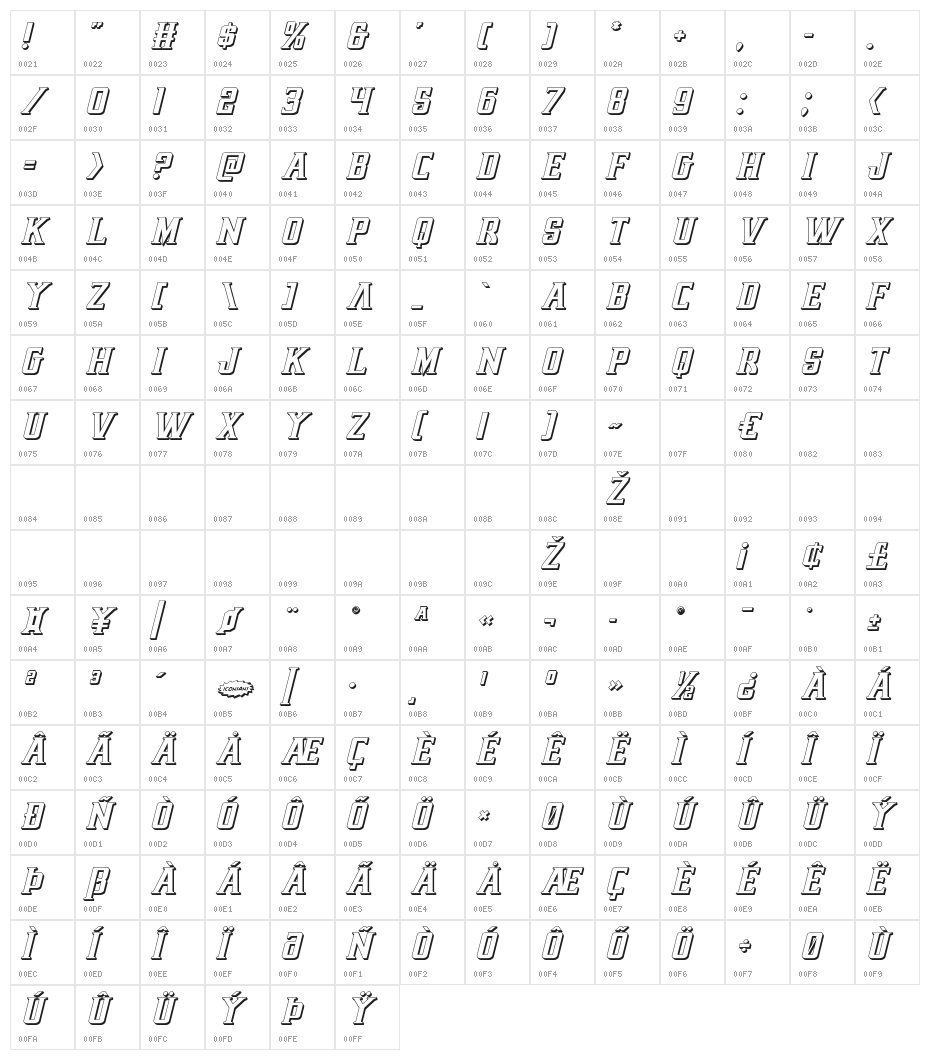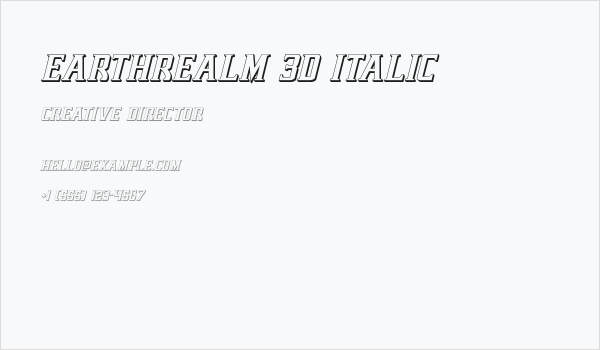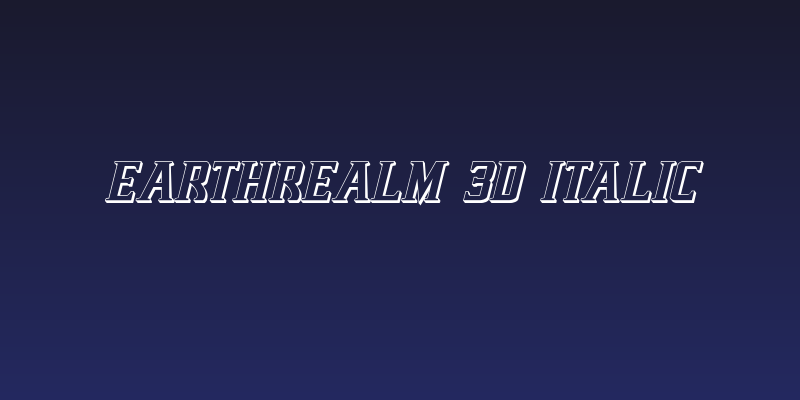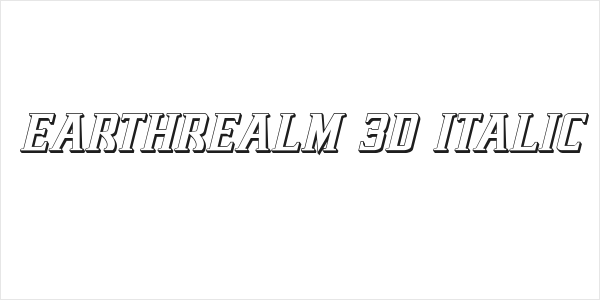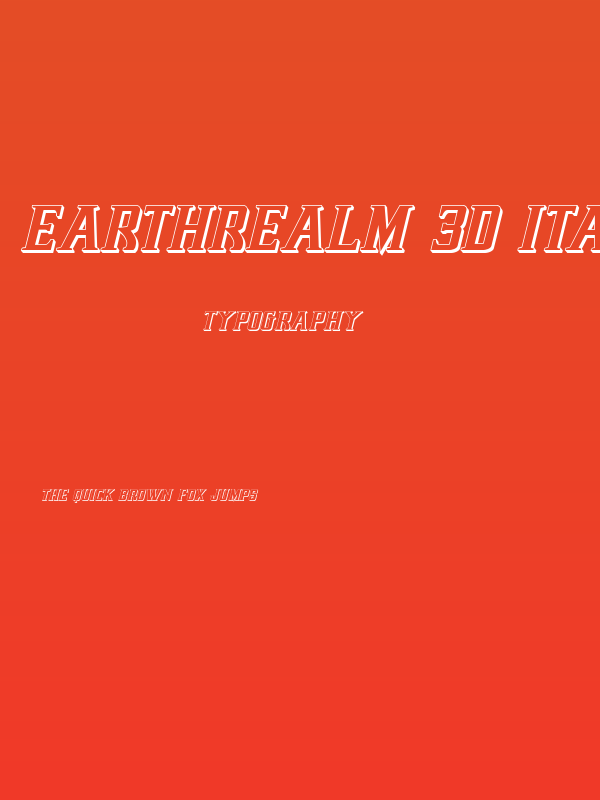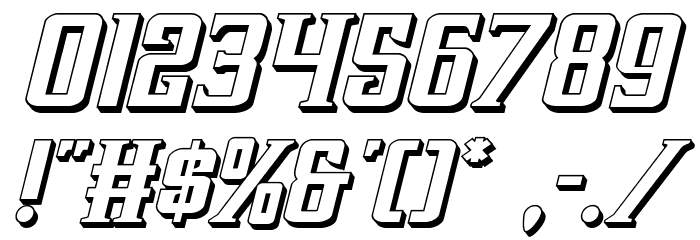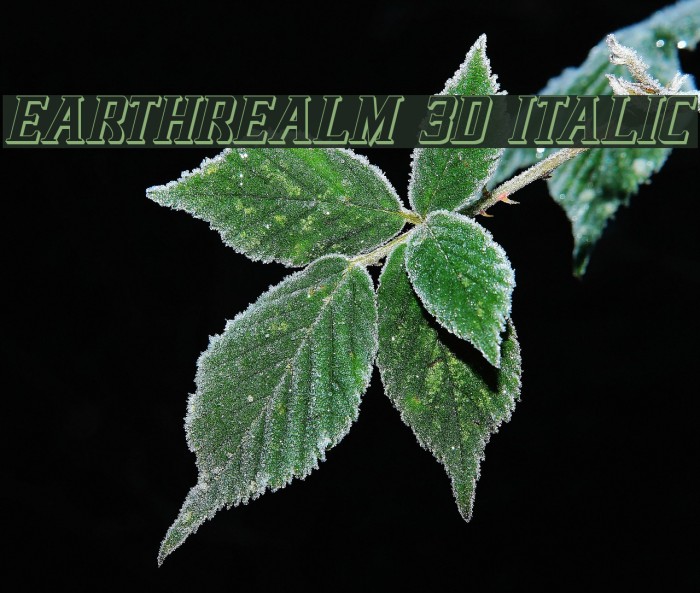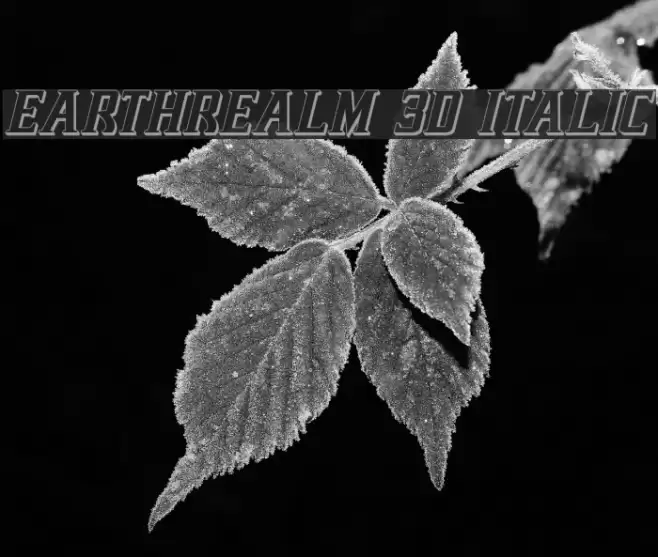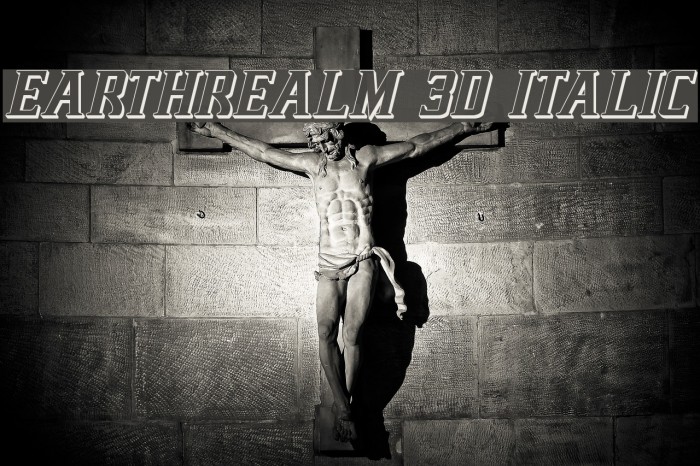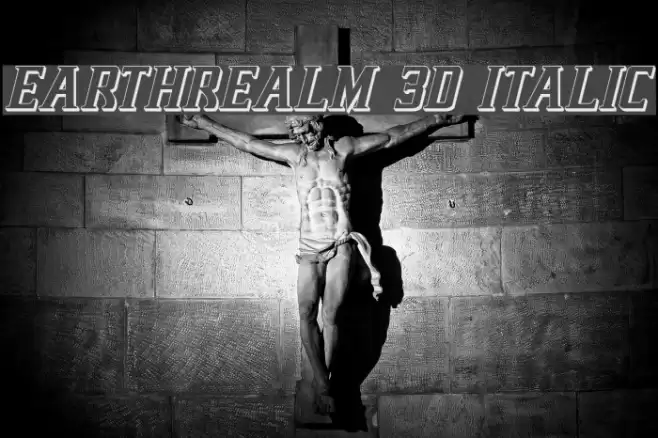
Earthrealm 3D Italic Font
Earthrealm 3D Italic Description
This font features a bold, three-dimensional style with italicized characters that convey a sense of motion and depth. The letters are outlined with a shadow effect, enhancing their 3D appearance. The uppercase and lowercase letters maintain a consistent slant, contributing to a dynamic and energetic look. The numerals and special characters follow the same design principles, ensuring uniformity across all glyphs. The font's strong presence makes it suitable for impactful designs where attention is key.
| Proposed Projects | Ideal for video game titles, movie posters, sports branding, and dynamic advertisements. |